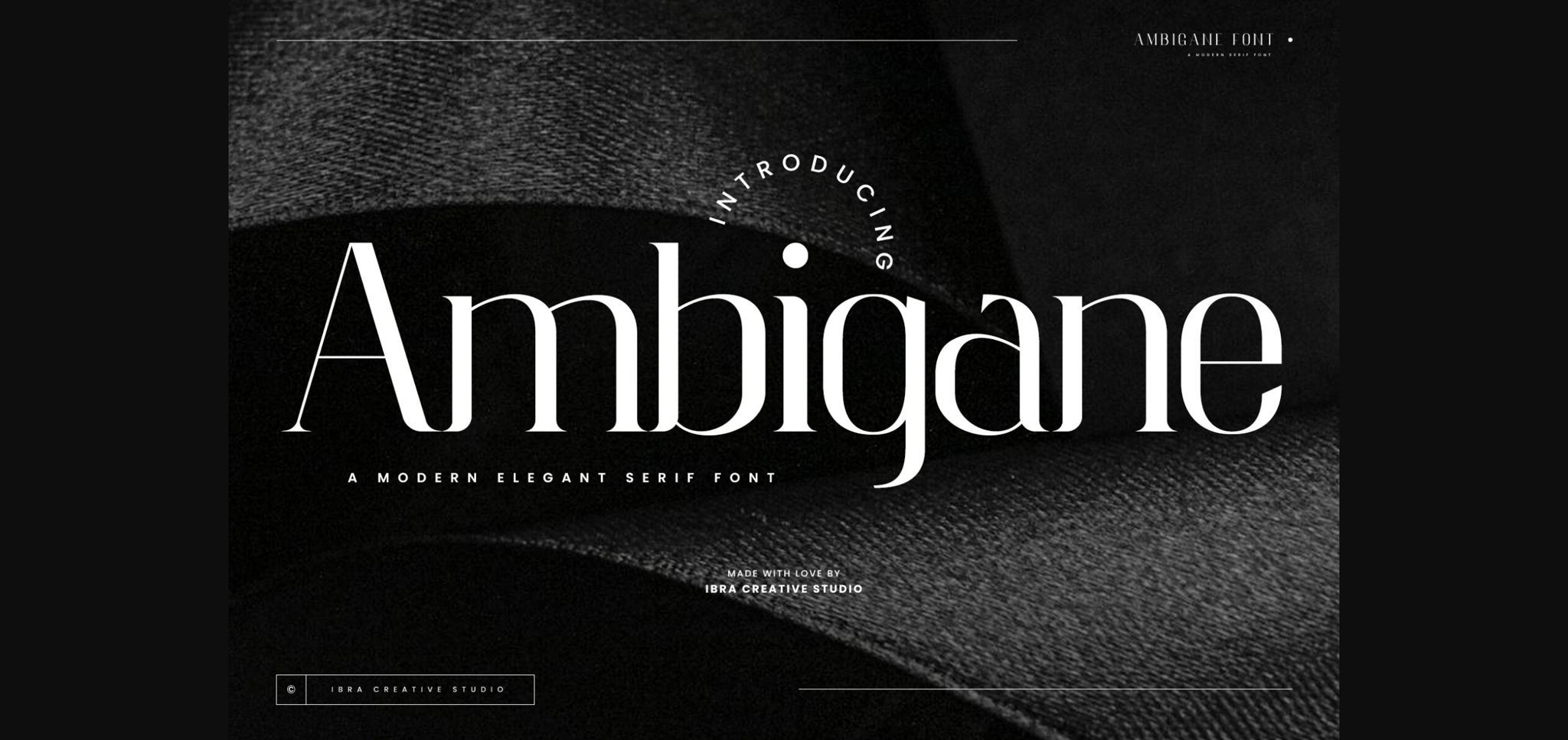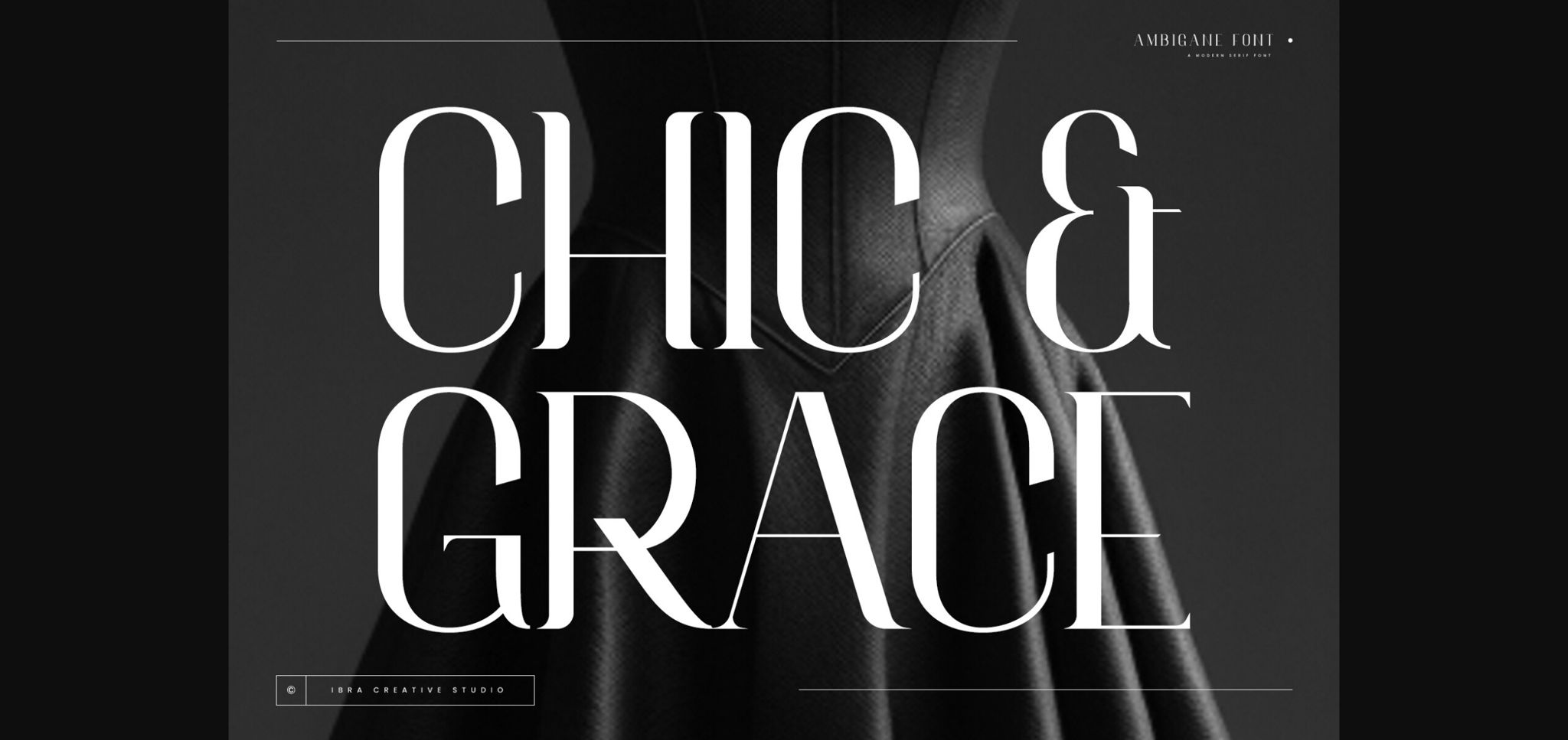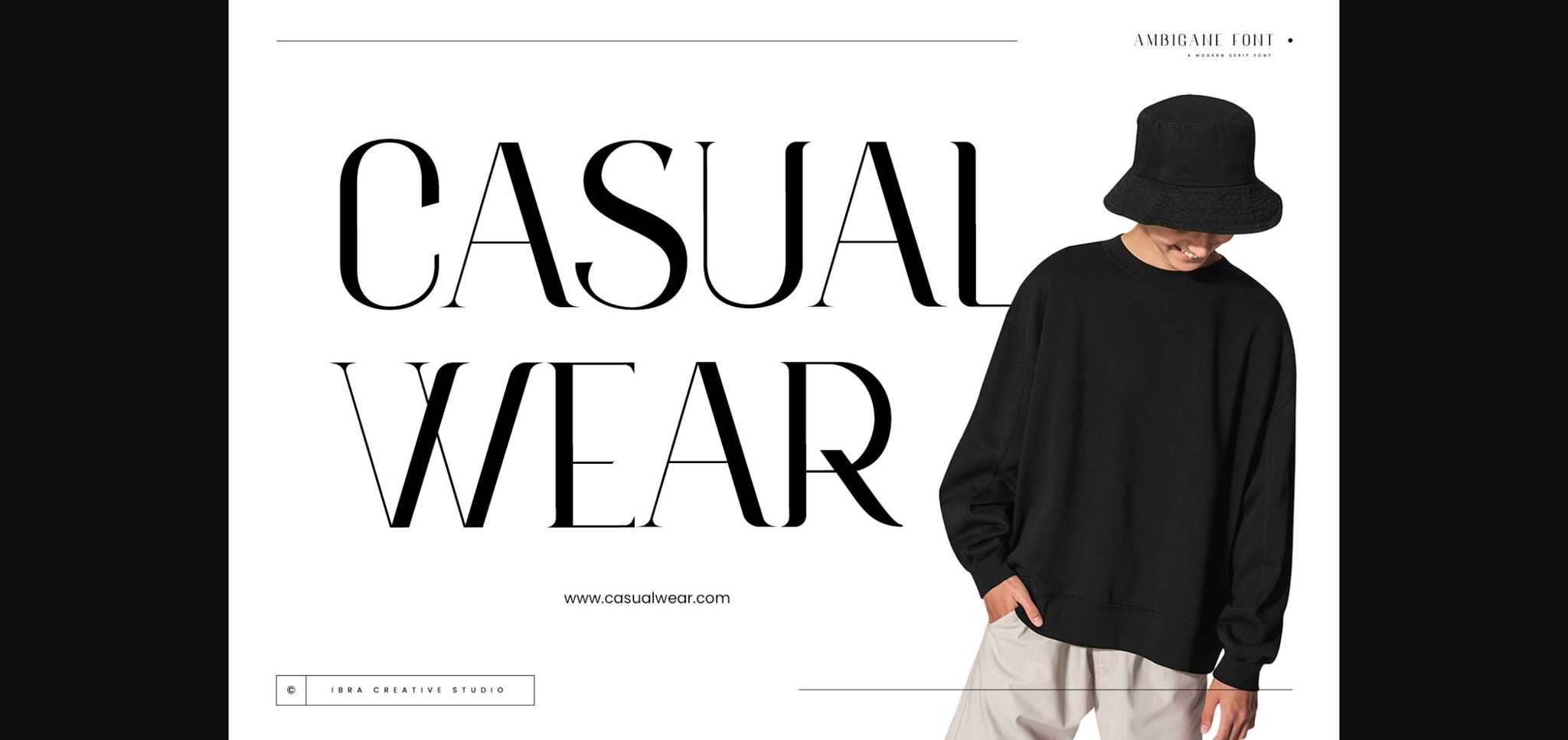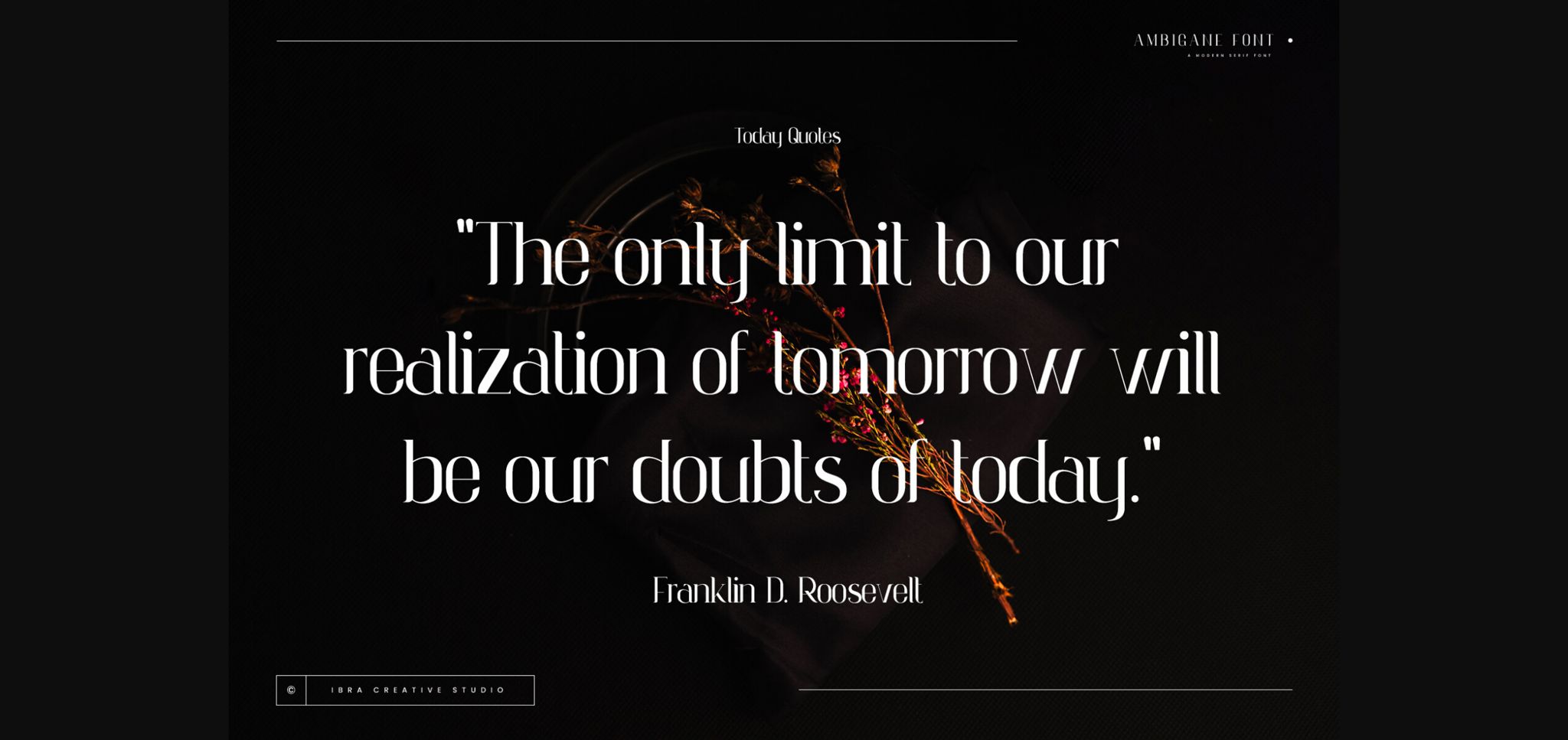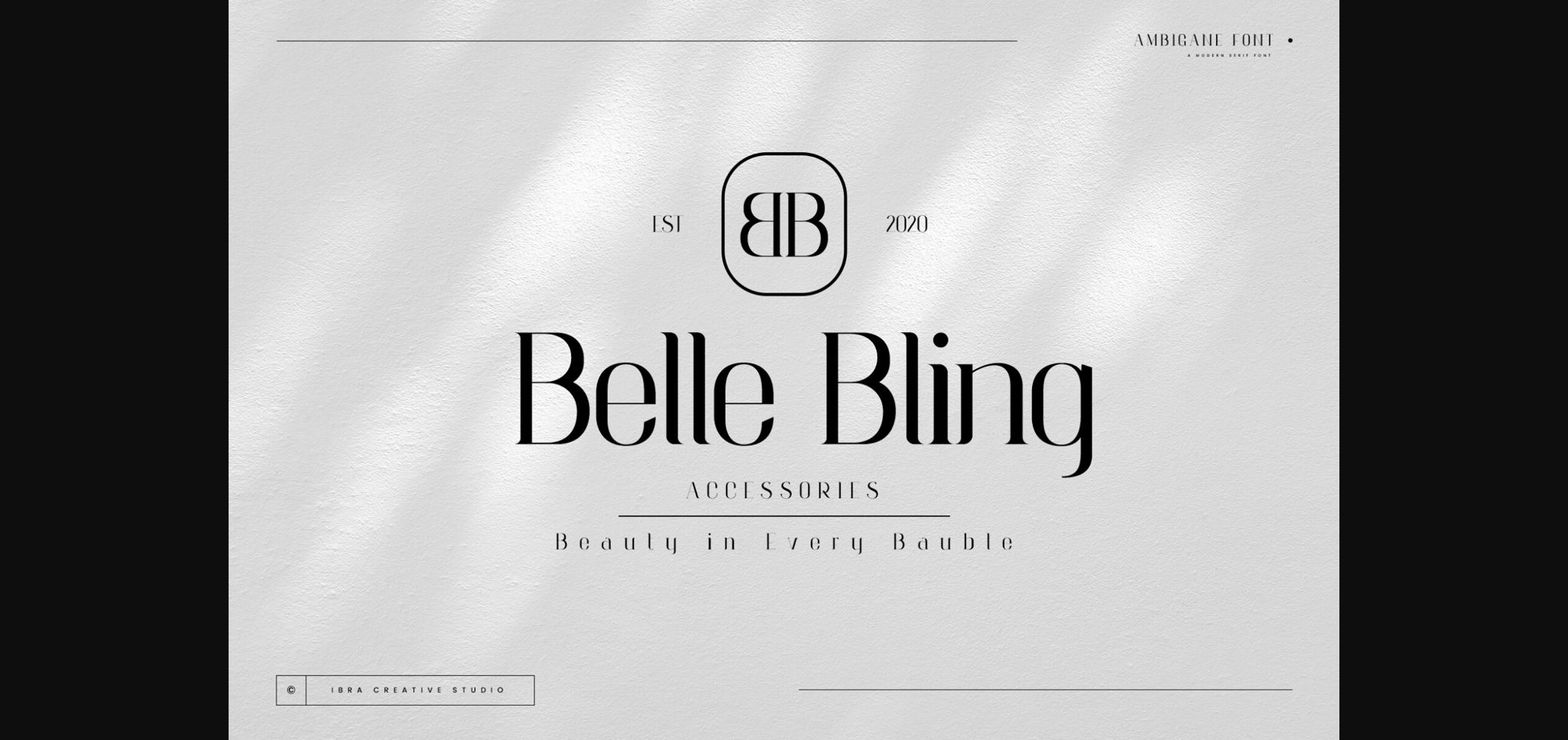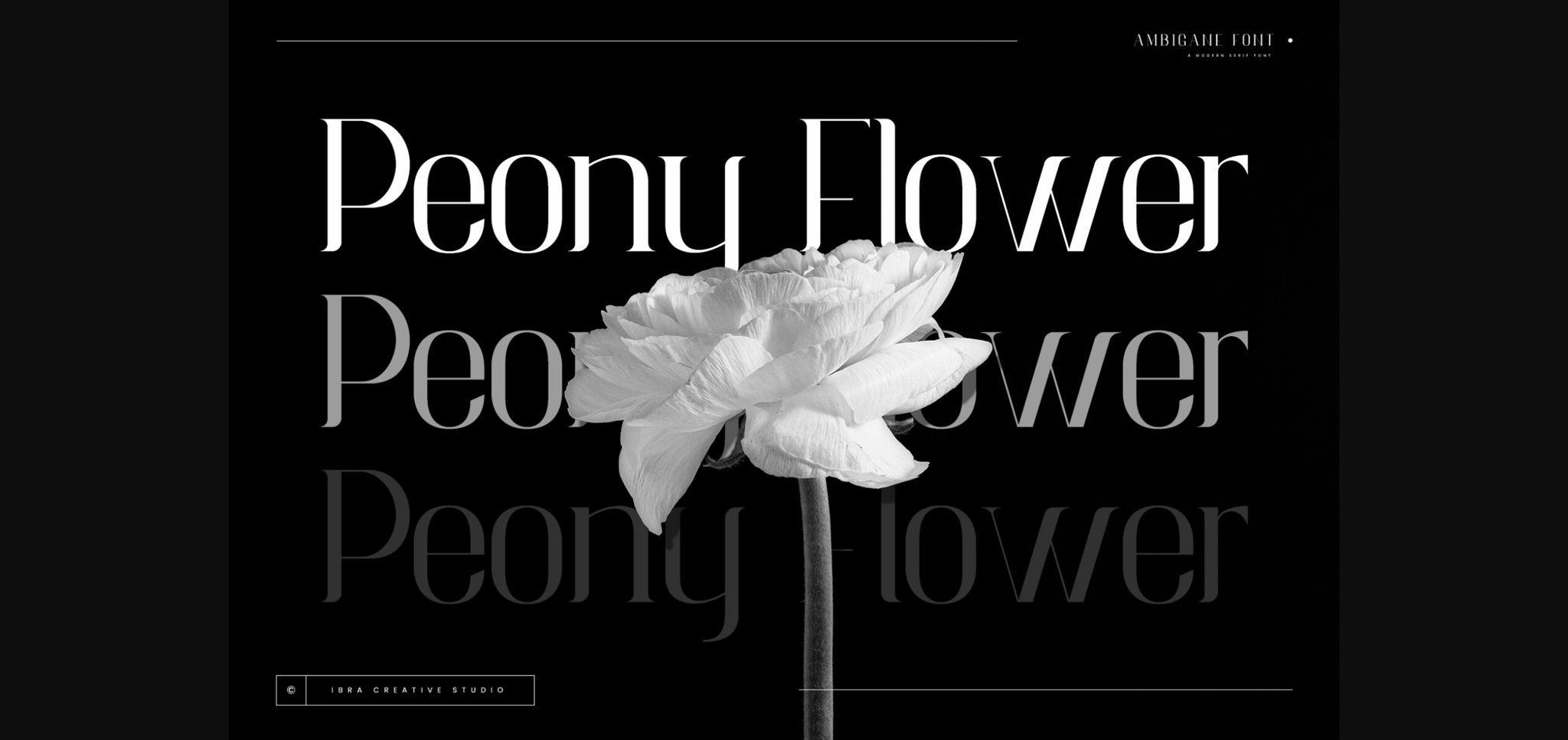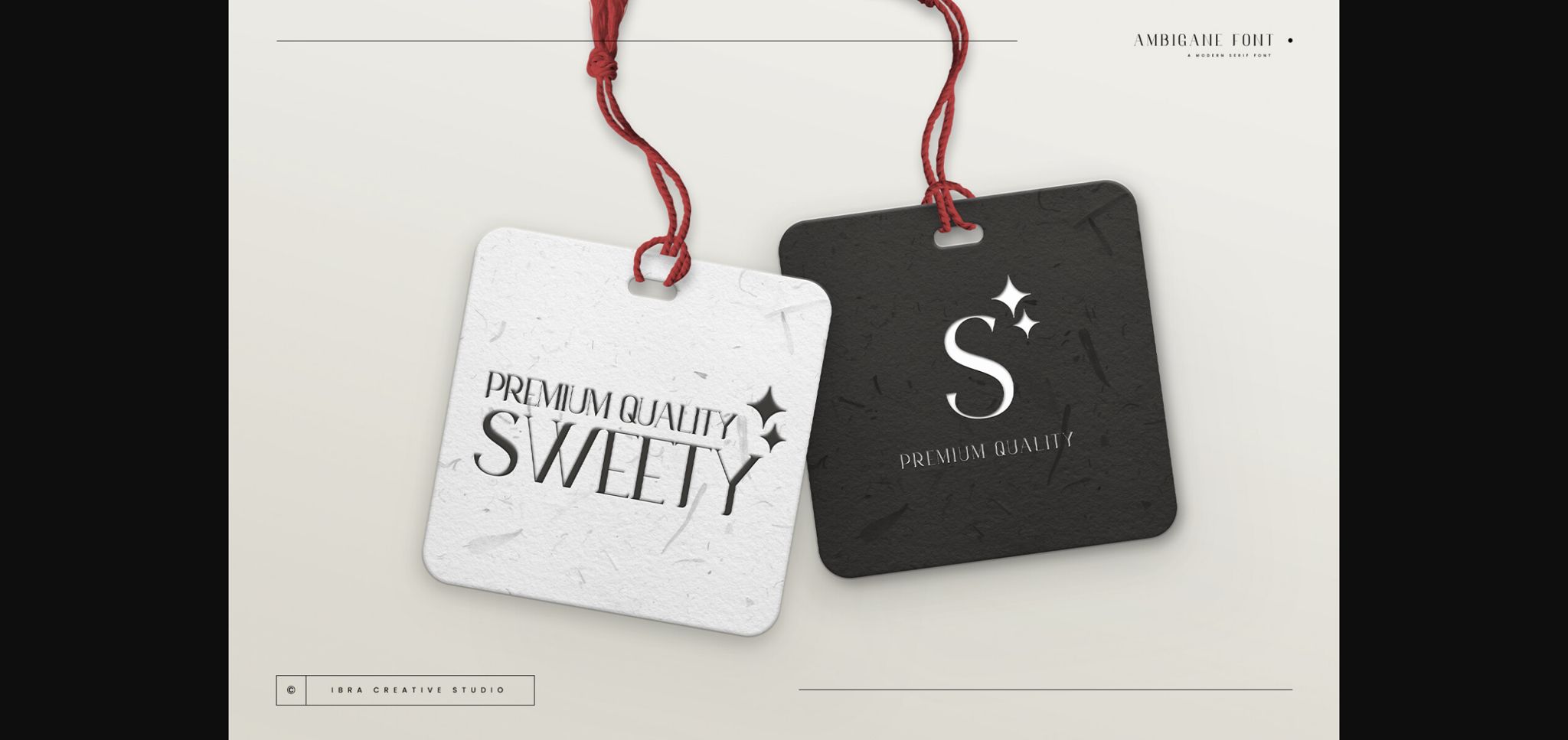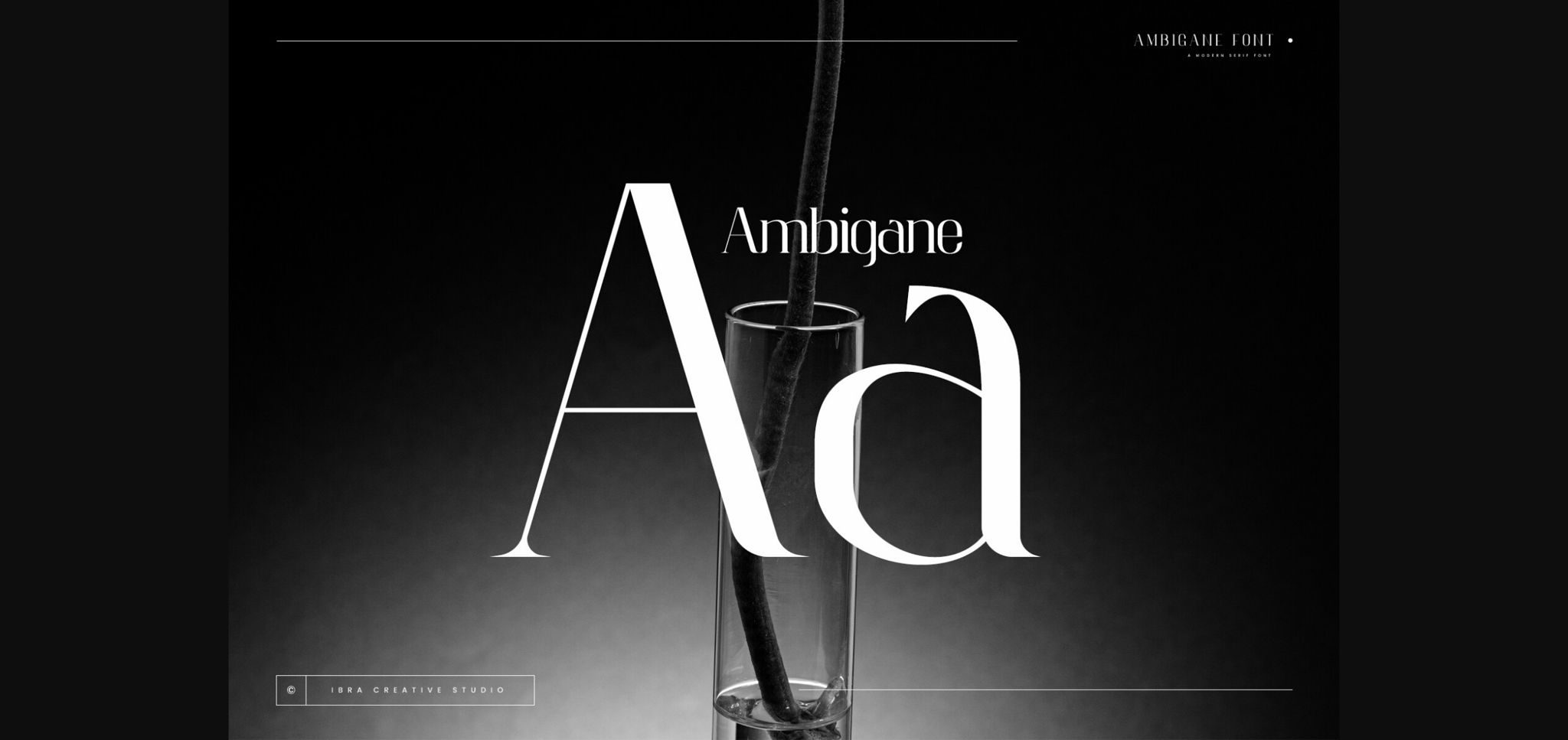
About Ambigane Font
Ambigane is a modern and elegant serif font that seamlessly blends sophistication with contemporary design. Its refined, timeless aesthetic is characterized by the subtle curves and clean lines of its letterforms, exuding a sense of luxury and professionalism. Ambigane strikes a harmonious balance between traditional serif elements and a fresh, modern twist, making it versatile for a range of design applications.